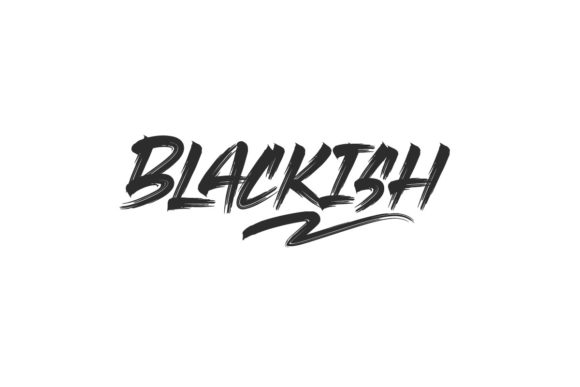
The Mysterious Allure of Blackish Font: A Designer’s Delight
I still remember the project that led me to discover the captivating world of Blackish Font. I was working on a branding campaign for a luxury event, and I was struggling to find the perfect font that would convey the right amount of mystery and sophistication. That’s when I stumbled upon Blackish Font, a stunning textured display font that embodies a unique, mysterious vibe. In this article, I’ll share my experience with Blackish Font, its features, and how to make the most of it in your designs.
An Honest Review of Blackish Font
What I Love About Blackish Font
- ✨ Unique textured look that adds depth to any design
- ✅ Highly versatile and suitable for various design projects, including events, artistic designs, branding, logos, stationery, signage, and more
- 🔥 Perfect for creating a mysterious or luxurious atmosphere in your designs
- 💡 Excellent for headlines, titles, and short text passages
While Blackish Font is an excellent choice for many design projects, there are a few things to keep in mind:
- 🤔 May not be the best choice for body text or long passages, as its textured nature can be overwhelming
A Practical Guide to Using Blackish Font
The Backstory of Blackish Font
Blackish Font was designed by a team of creatives who wanted to create a font that would evoke a sense of mystery and intrigue. Inspired by the world of luxury and exclusivity, they crafted a font that would add a touch of sophistication to any design project. While the exact details of the design process are unknown, it’s clear that Blackish Font was created with the intention of making a statement.
| Font Name | Blackish Font |
| Author | NihStudio |
Q: What is Blackish Font best used for?
A: Blackish Font is best used for headlines, titles, and short text passages in design projects that require a mysterious or luxurious atmosphere, such as events, artistic designs, branding, logos, stationery, signage, and more.
Q: Can I use Blackish Font for body text?
A: While Blackish Font can be used for body text, it’s not recommended, as its textured nature can be overwhelming for long passages. Instead, use it for headlines, titles, and short text passages to add visual interest.
Q: Is Blackish Font suitable for digital use?
A: Yes, Blackish Font is suitable for digital use, including social media graphics, website headers, and more. However, keep in mind that its textured nature may not render well on all devices or screen sizes.